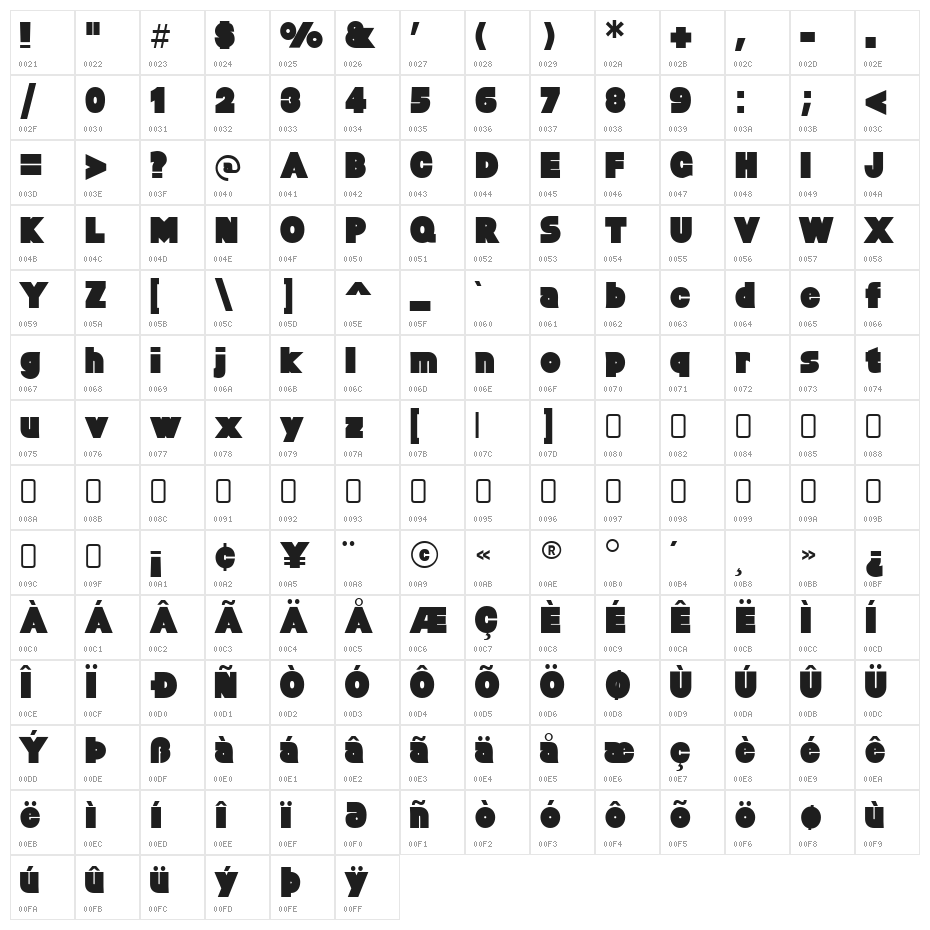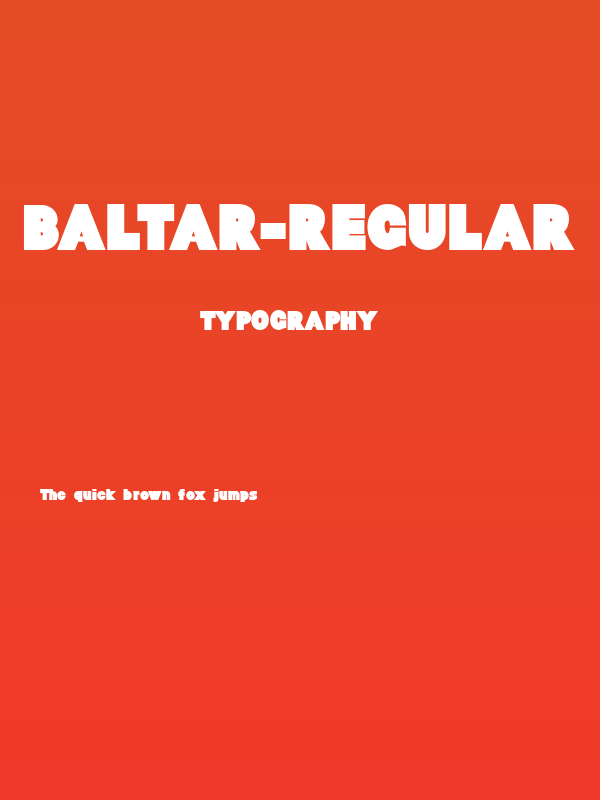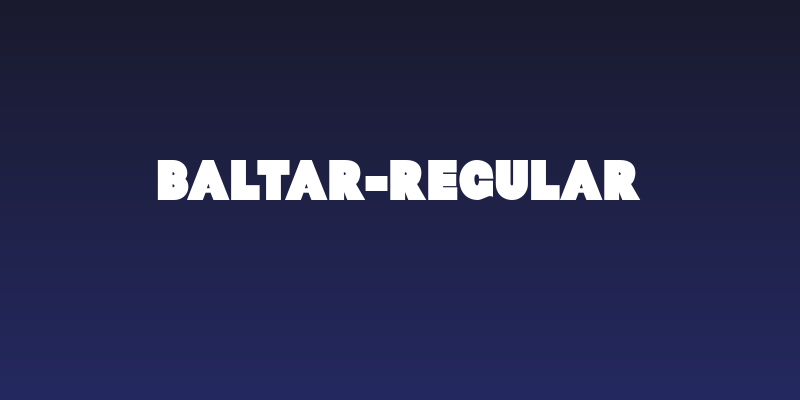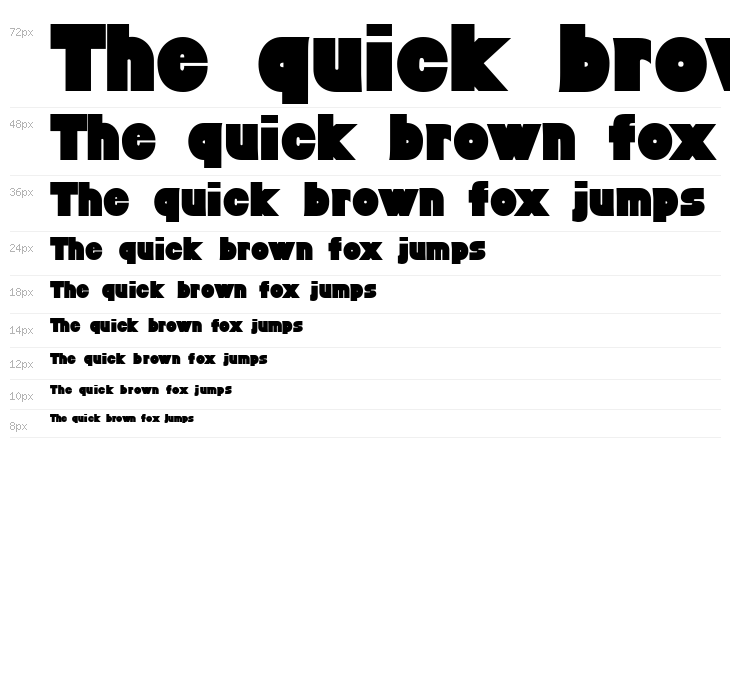
Baltar-Regular Font
Baltar-Regular Description
This font features a bold and impactful design with thick, blocky letters that convey a sense of strength and modernity. The uppercase and lowercase characters maintain a consistent weight, creating a uniform appearance across the alphabet. The numbers and special characters are equally robust, ensuring readability and emphasis. The overall style is geometric, with sharp angles and clean lines that enhance its contemporary feel. This font is ideal for making a strong visual statement in various design contexts.
| Proposed Projects | Perfect for branding, posters, headlines, and any project requiring a strong visual impact. |